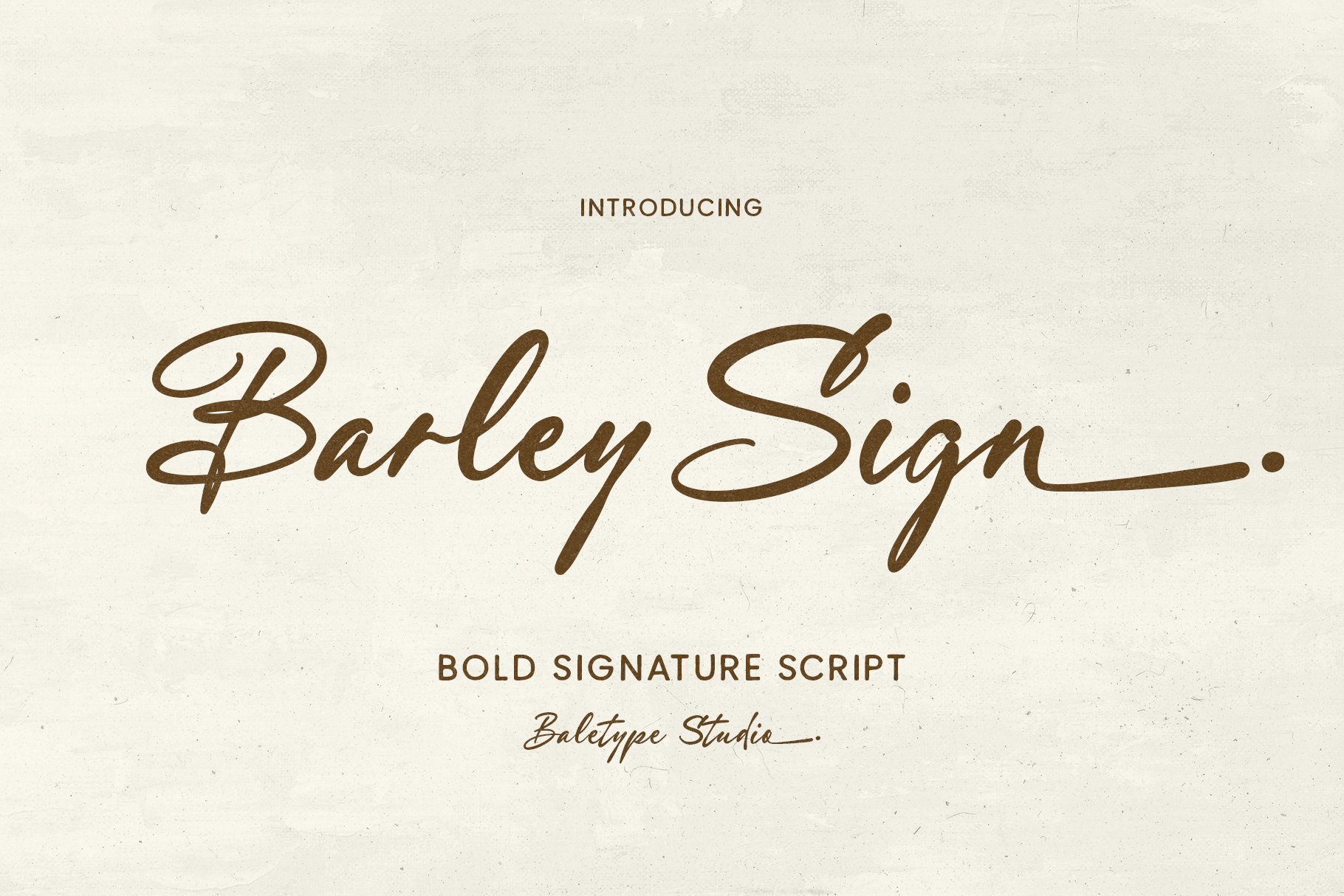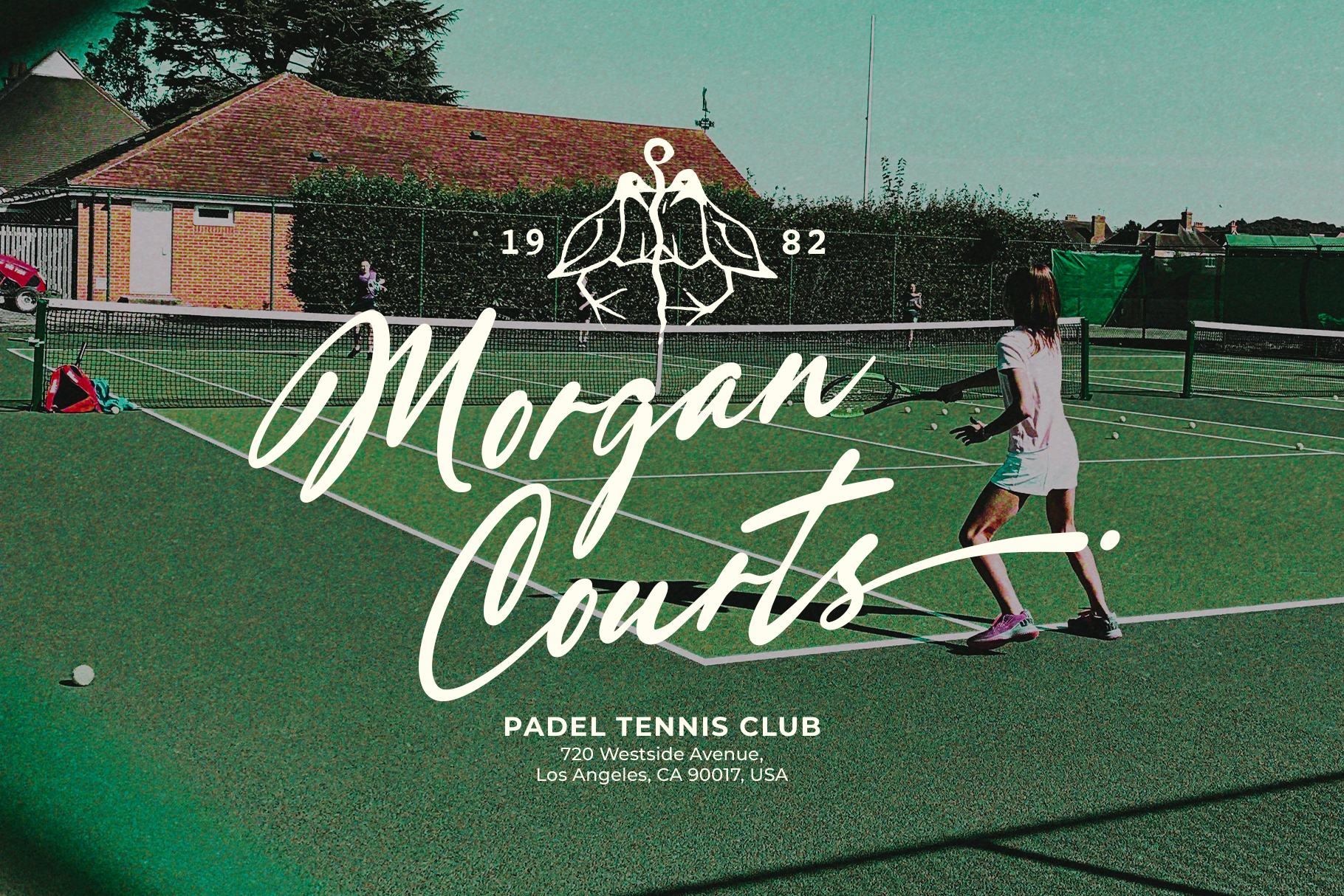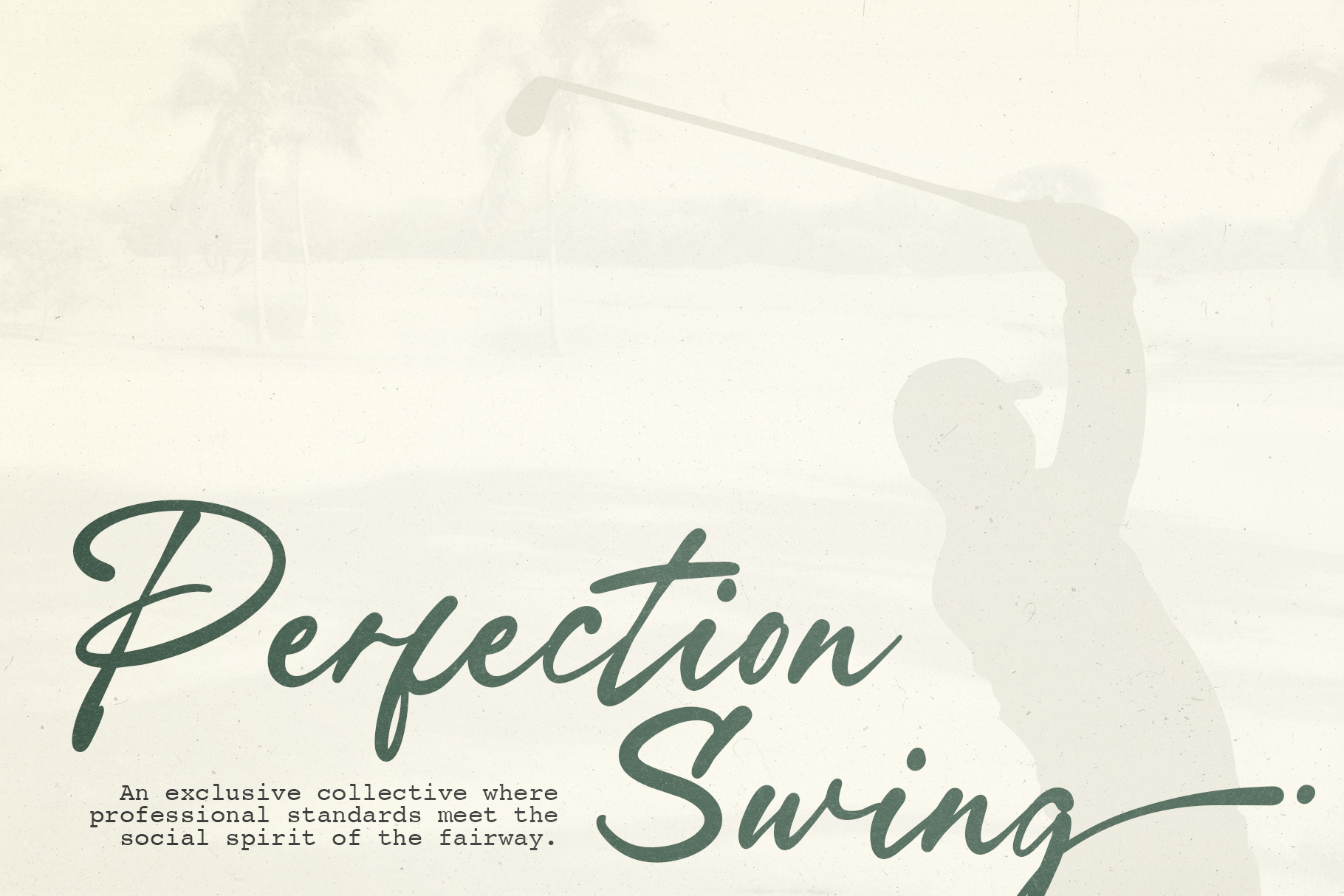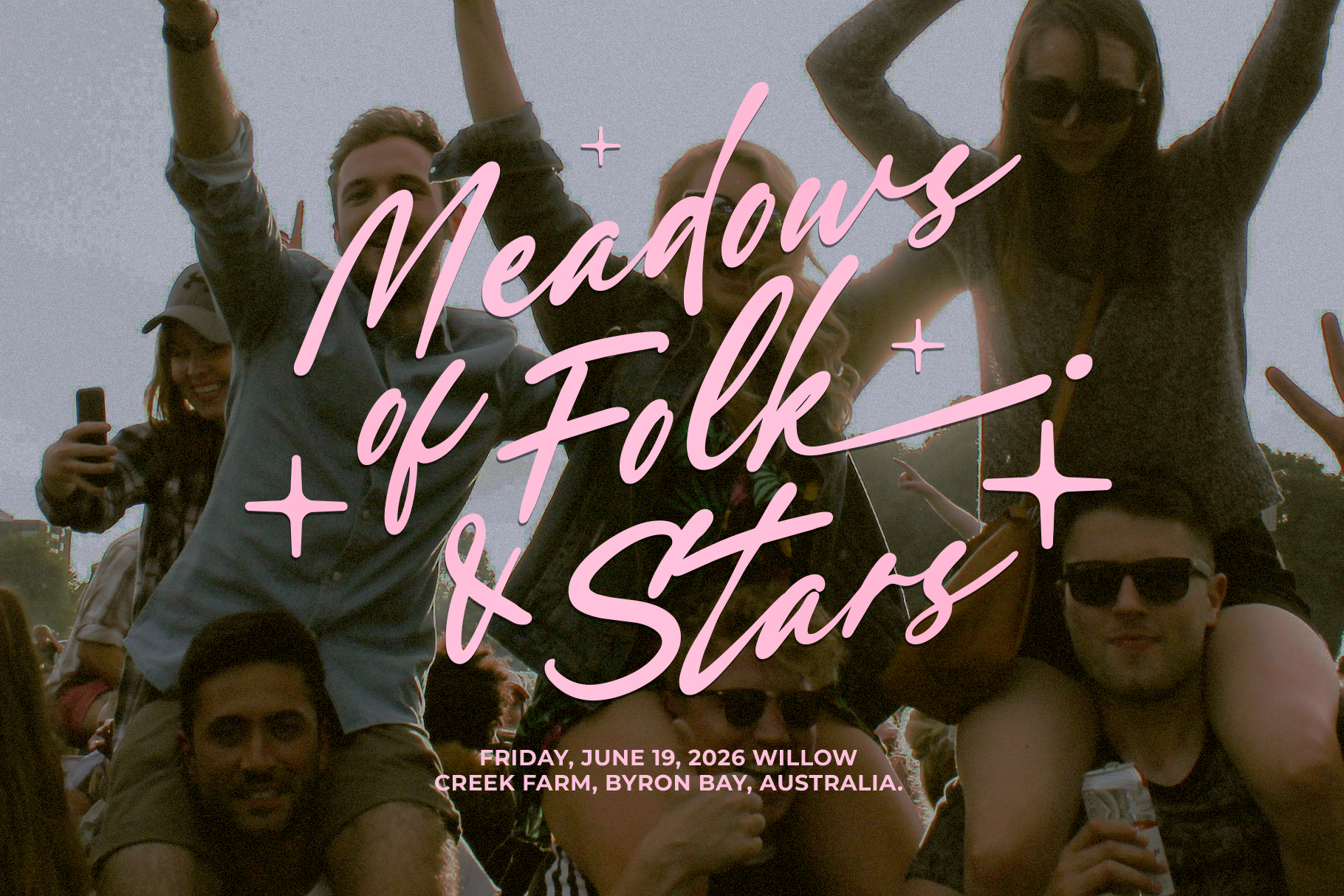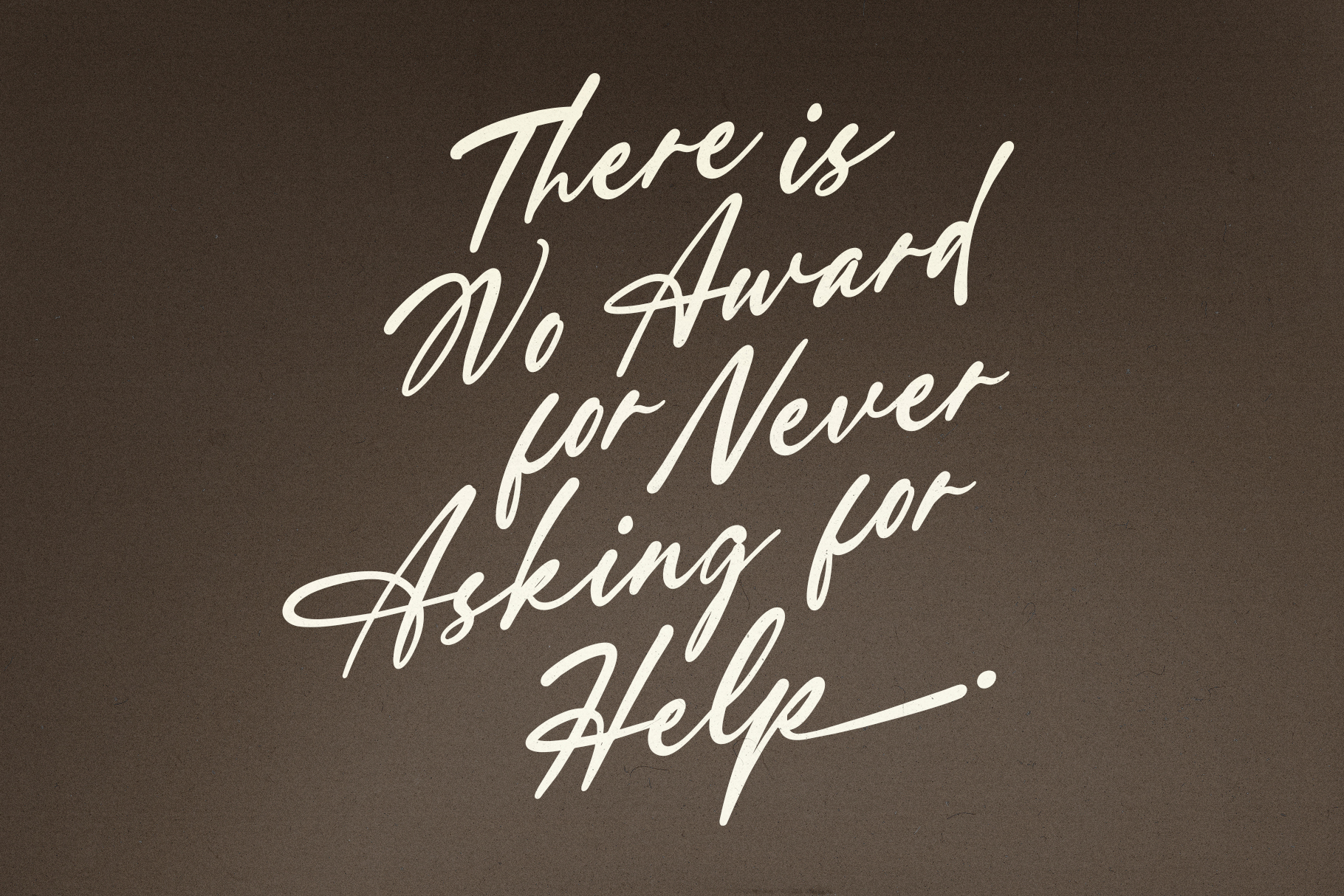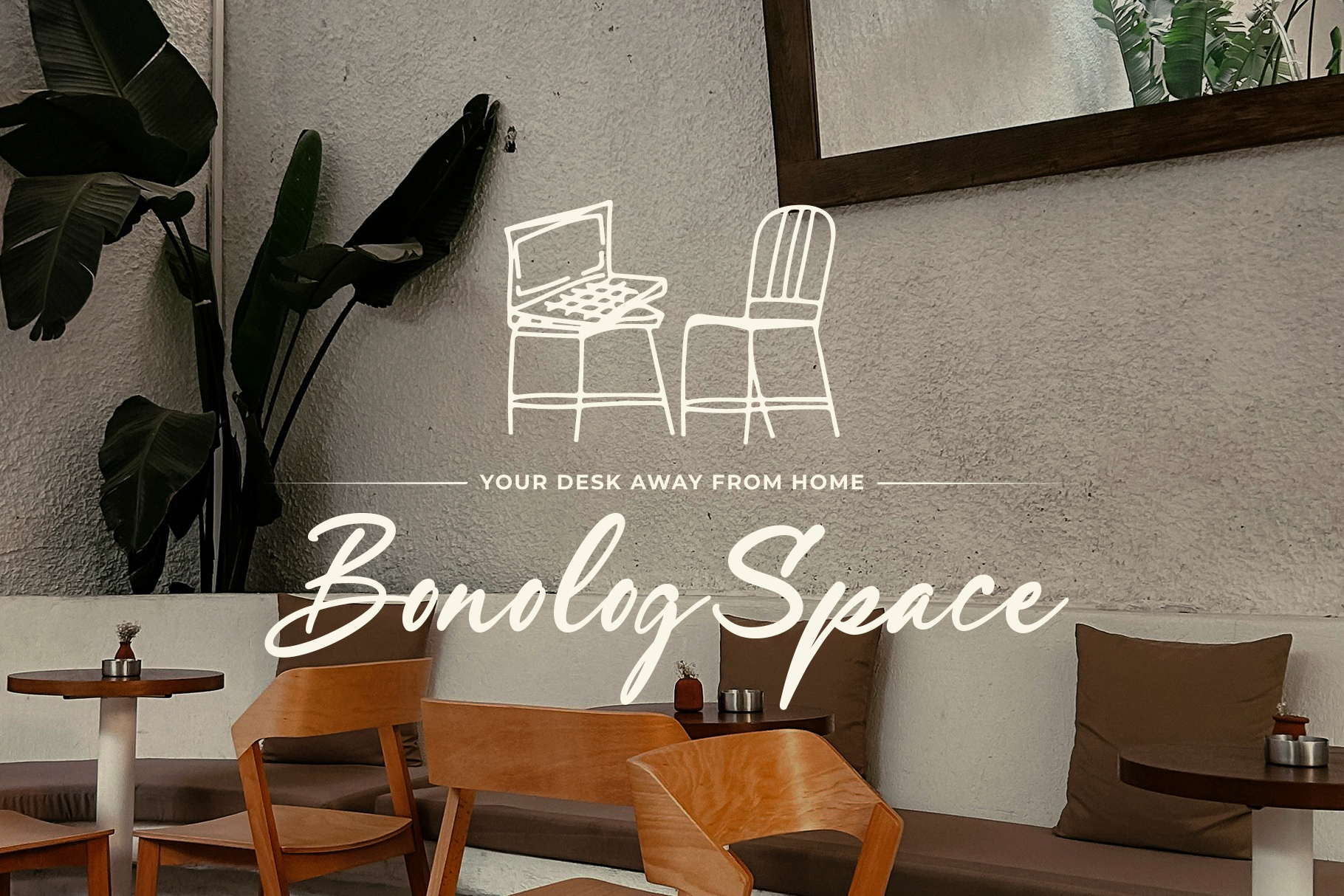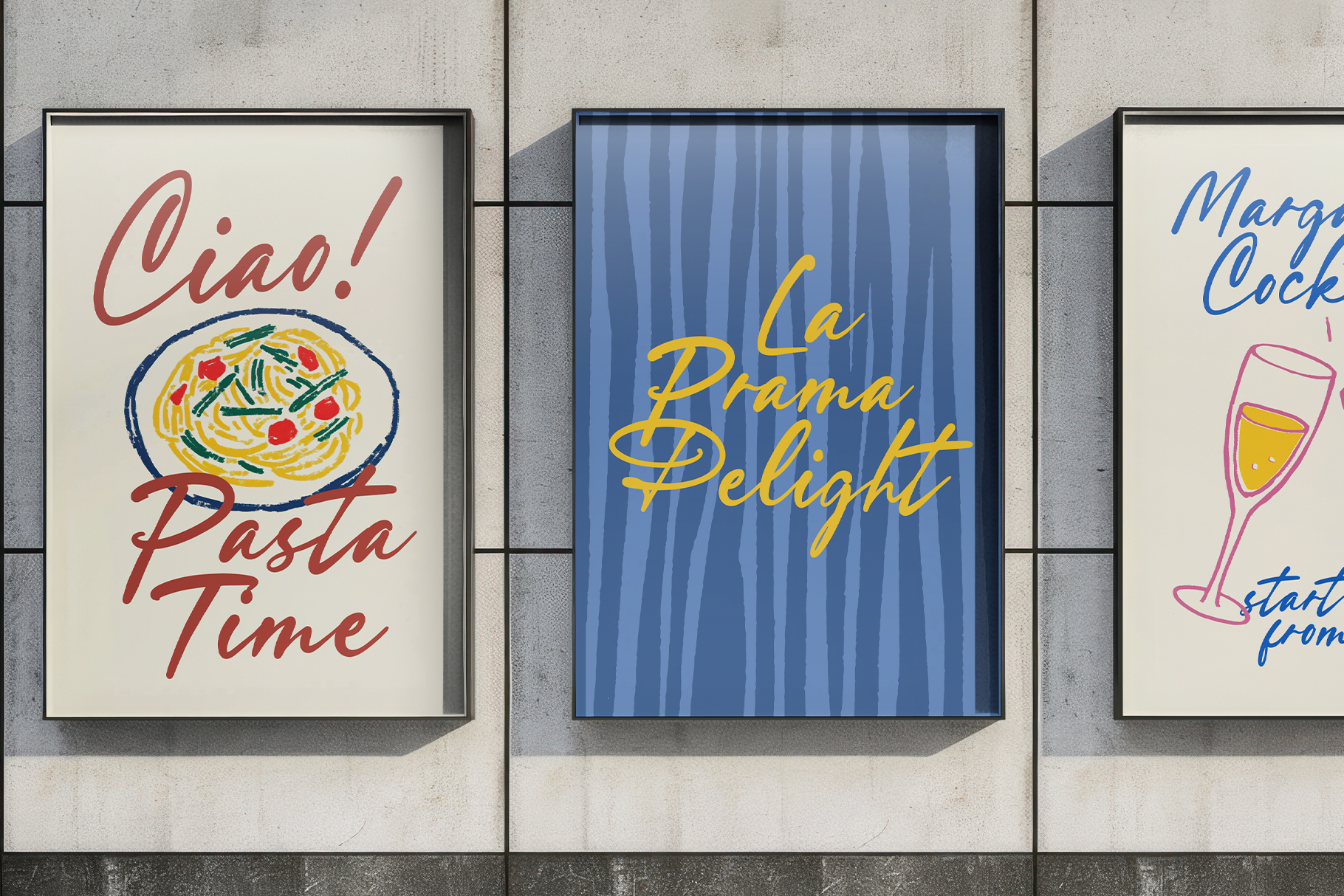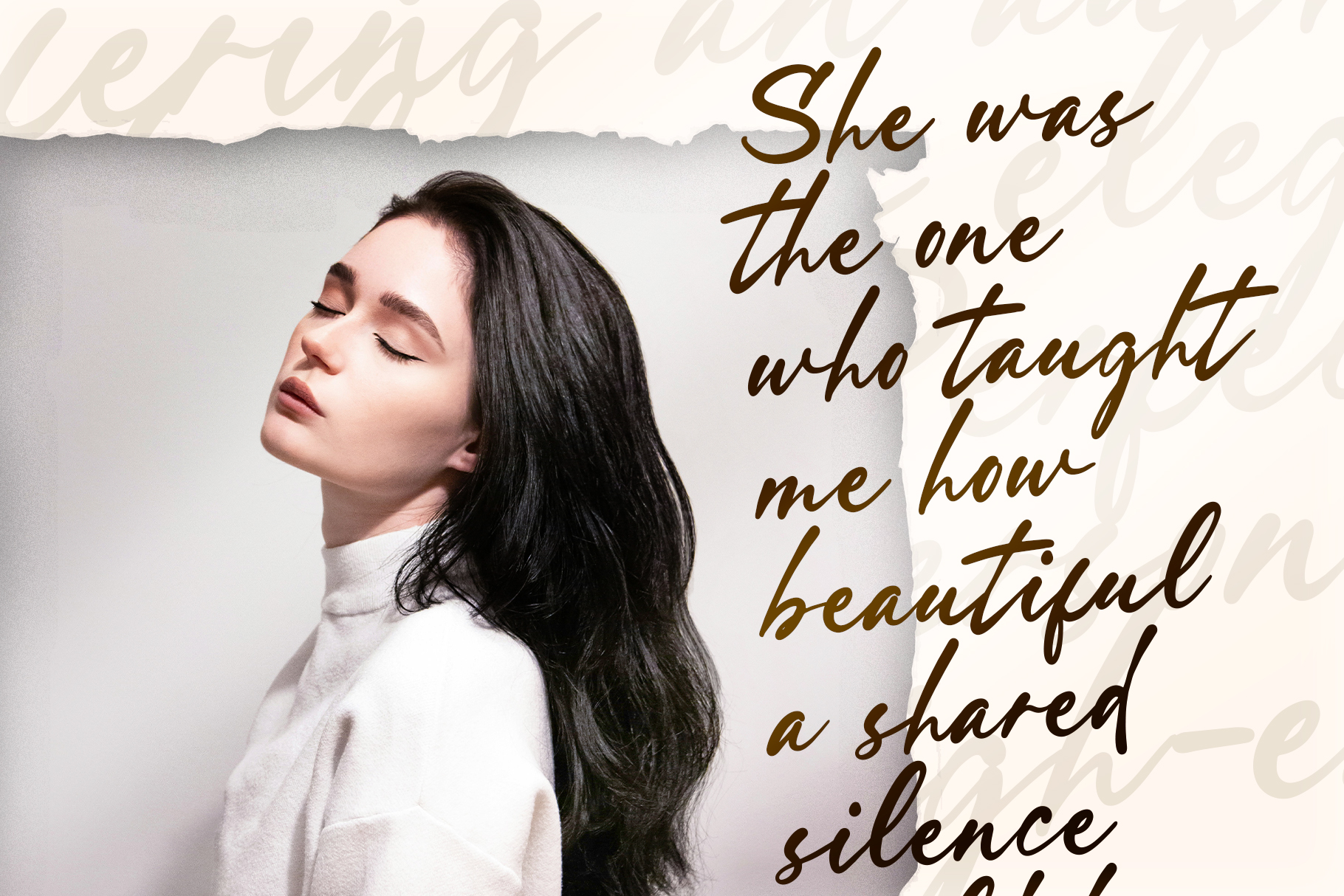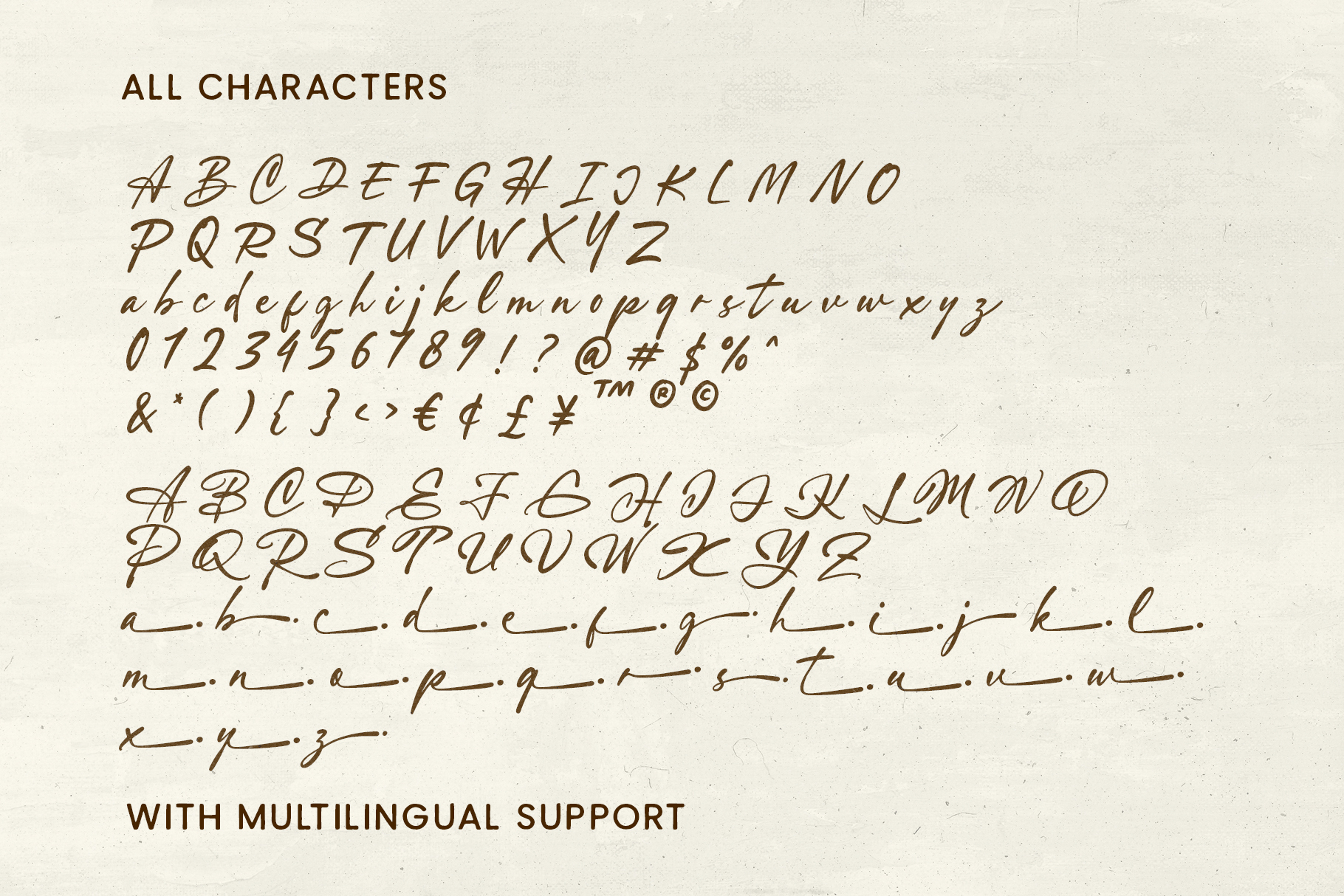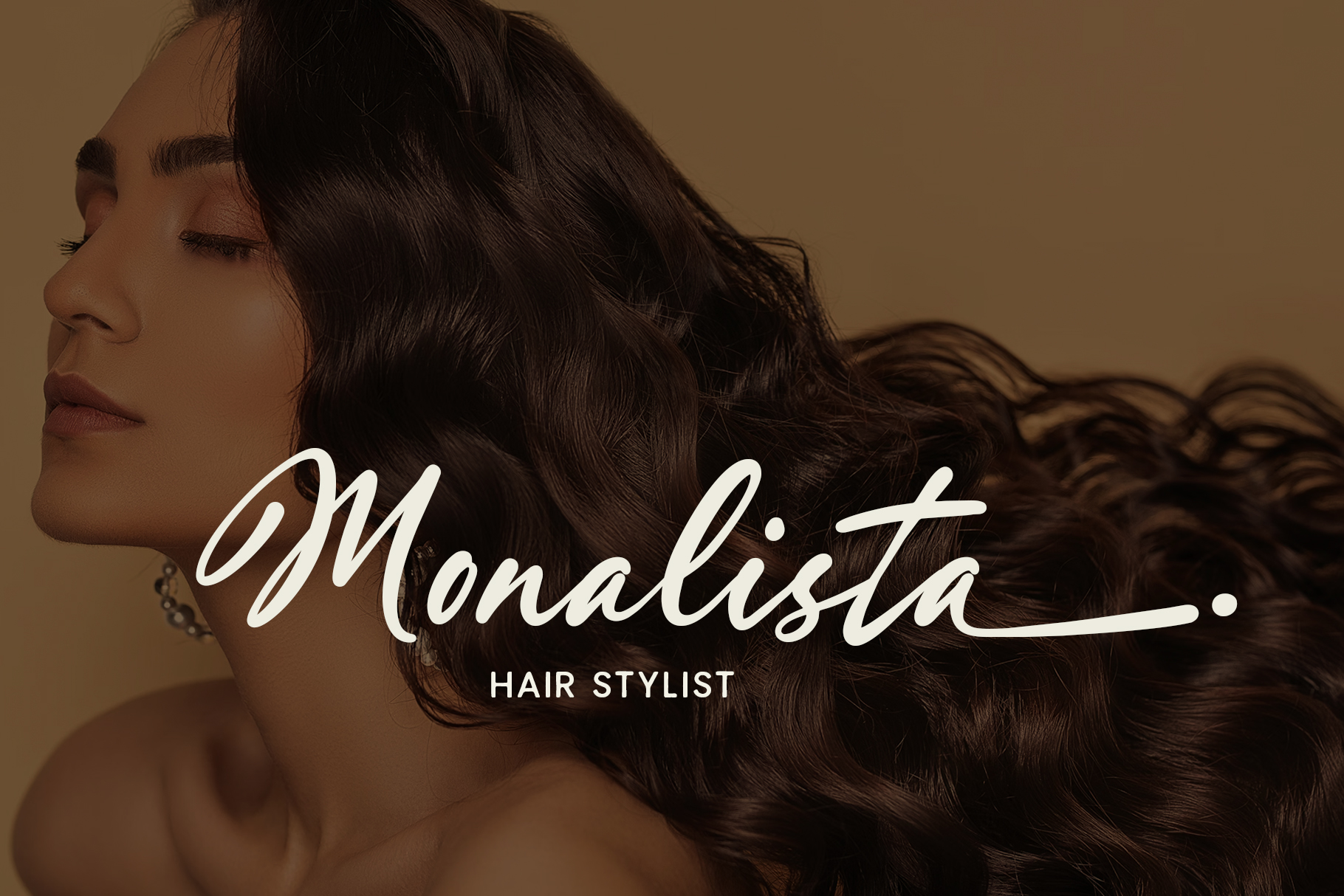
Barley Sign is a bold handwritten script with alternates. You can use this font for any purposes such as signature, logotype, logo, branding, quotes, or invitation wedding. With long end swash alternates, you can make your own signature more stylish and stand out. This font also support multi language.
Barley Sign – Bold Signature Script
Barley Sign is a bold handwritten script with alternates.